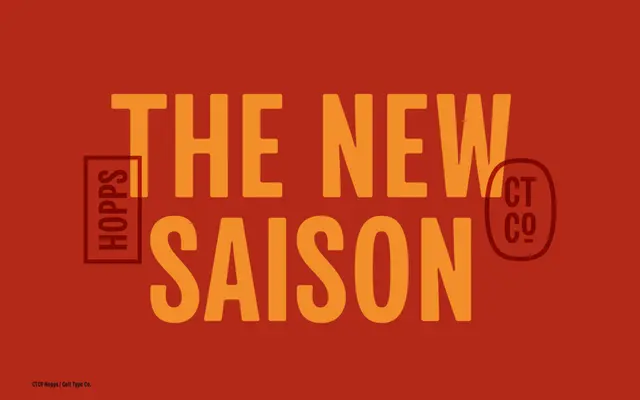
CTCO Hopps Condensed
A condensed display grotesque drawn from vintage beer labels and newspaper headlines, offered in regular and rounded cuts.
Four styles cover the family: Regular, Italic, Rounded and Rounded Italic, giving designers a choice between hard-edged and softened terminals within the same condensed structure. The vintage beer label and newspaper headline references lend it a period warmth that suits bold editorial work, poster typography and logo lockups. At this price point it sits as a functional, characterful display tool rather than a serious text companion.
A condensed display grotesque drawn for headlines and posters, with vintage beer label and newspaper headline references placing it firmly in the display category rather than text use.